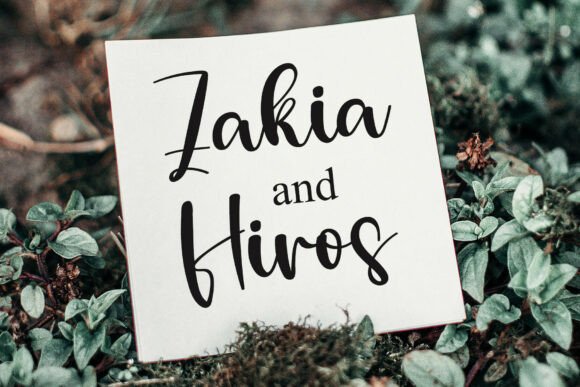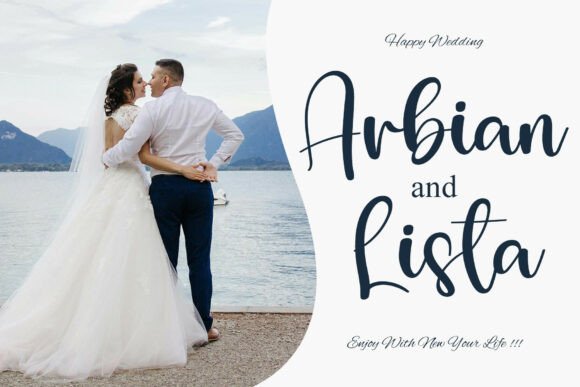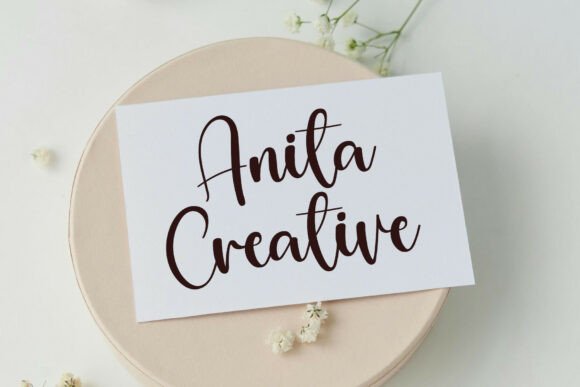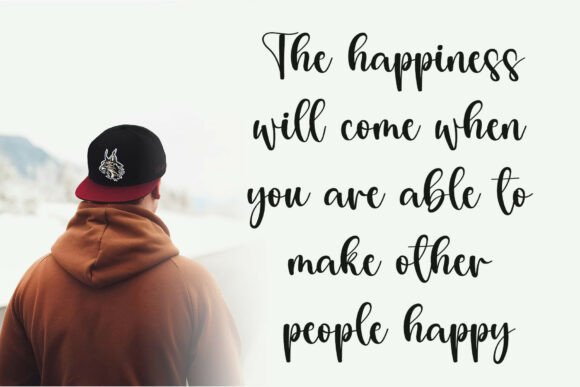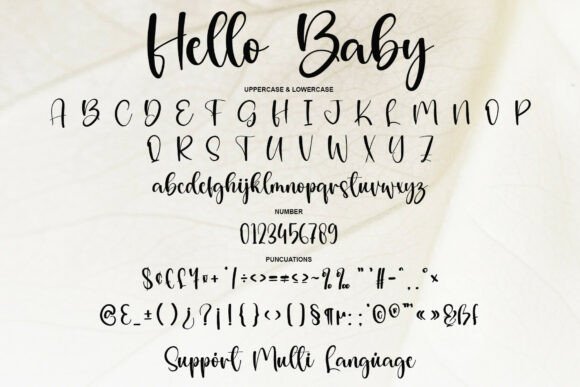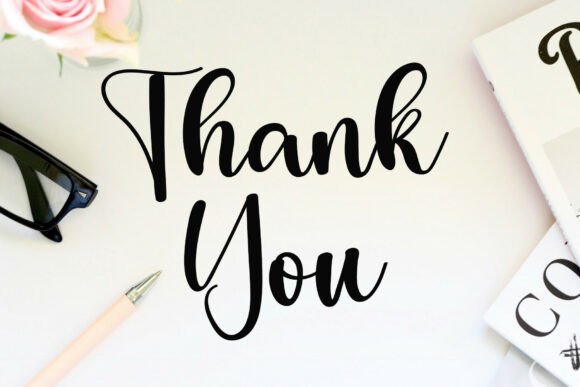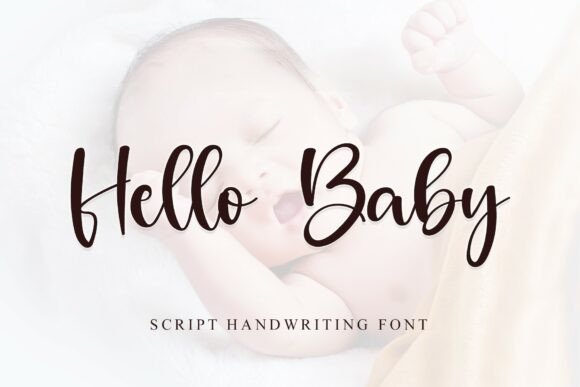
Hello Baby Font: Elevate Your Designs with Elegance and Sophistication
In the world of digital design, fonts play a pivotal role in conveying messages, evoking emotions, and creating lasting impressions. Among the myriad of fonts available, the Hello Baby Font stands out as a beacon of elegance and modernity. This beautiful, refined handwritten font is not just a typeface; it’s a design statement that can elevate your projects to new heights of sophistication and charm.
The Essence of Hello Baby Font
Hello Baby Font is characterized by its classy and modern aesthetic, making it an ideal choice for a wide range of design applications. Whether you’re crafting logos, branding materials, invitations, stationery, wedding designs, or social media posts, this font adds a touch of refinement and luxury. Its handwritten nature brings a personal and intimate feel to your designs, making them more engaging and relatable.
Key Features of Hello Baby Font
• PUA Encoding: One of the standout features of Hello Baby Font is its PUA (Private Use Area) encoding. This means that the font includes a vast array of glyphs and ligatures that are easily accessible, allowing designers to explore a wide range of creative possibilities without needing additional software or complicated workarounds.
• Versatility: The versatility of Hello Baby Font is one of its most compelling attributes. It seamlessly adapts to various design contexts, from formal and corporate to casual and whimsical. This adaptability makes it a valuable asset for designers who work on diverse projects.
• Legibility: Despite its elegant and cursive nature, Hello Baby Font boasts excellent legibility. This ensures that your message is conveyed clearly and effectively, whether it’s used for headings, body text, or decorative elements.
Applications of Hello Baby Font
The applications of Hello Baby Font are vast and varied. Here are a few examples where this font can make a significant impact:
• Logos and Branding: Create memorable and sophisticated logos that set your brand apart. The unique yet professional look of Hello Baby Font can help establish a strong brand identity.
• Invitations and Stationery: Add a touch of elegance to your invitations, greeting cards, and stationery. The font’s refined appearance makes it perfect for formal and informal events.
• Wedding Designs: Hello Baby Font is an excellent choice for wedding-related designs, including wedding invitations, save-the-date cards, and ceremony programs. Its romantic and sophisticated feel complements wedding themes beautifully.
• Social Media Posts: Elevate your social media presence with stylish and engaging posts. The font’s modern look can help increase the visual appeal of your content and attract more engagement.
Tips for Using Hello Baby Font
To maximize the potential of Hello Baby Font, consider the following tips:
• Mix and Match: Don’t be afraid to experiment by combining Hello Baby Font with other typefaces. A well-thought-out font pairing can enhance the visual hierarchy and aesthetic appeal of your design.
• Adjust Size and Color: Play with the size and color of the font to create visual interest. For instance, using a larger size for headings and a smaller size for body text can improve readability and emphasis.
• Utilize Ligatures and Glyphs: Take full advantage of the PUA-encoded features by incorporating ligatures and glyphs into your design. These elements can add a unique touch and make your work stand out.
Font Name Hello Baby Font
Author Bintang Studio
Hello Baby Font is more than just a typeface; it’s a design tool that can transform your projects with its elegance, versatility, and modern charm. Whether you’re a professional designer or a crafting enthusiast, this beautiful handwritten font offers endless possibilities for creative expression. By incorporating Hello Baby Font into your design repertoire, you’ll be well on your way to creating visually stunning and impactful works that leave a lasting impression.